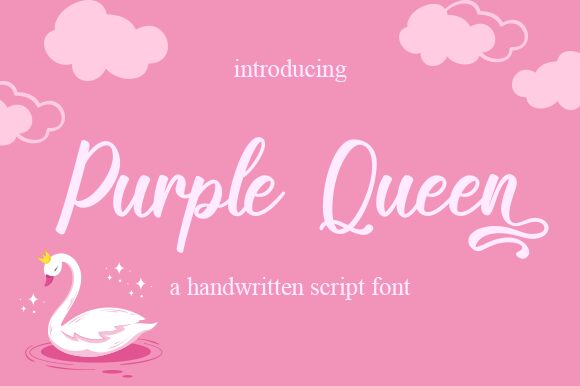
Purple Queen
Purple Queen, a stunning calligraphy font designed by Nirmala Creative, is perfect for any project that requires an elegant and feminine touch. With its semi-light weight, it exudes a delicate charm that will make your designs stand out. This font is ideal for wedding invitations, greeting cards, logos, branding materials, and anything that needs a touch of sophistication. Purple Queen's graceful curves and flourishes add a timeless appeal to any design. Its versatility allows it to be used in both print and digital media. Elevate your designs with the regal beauty of Purple Queen!